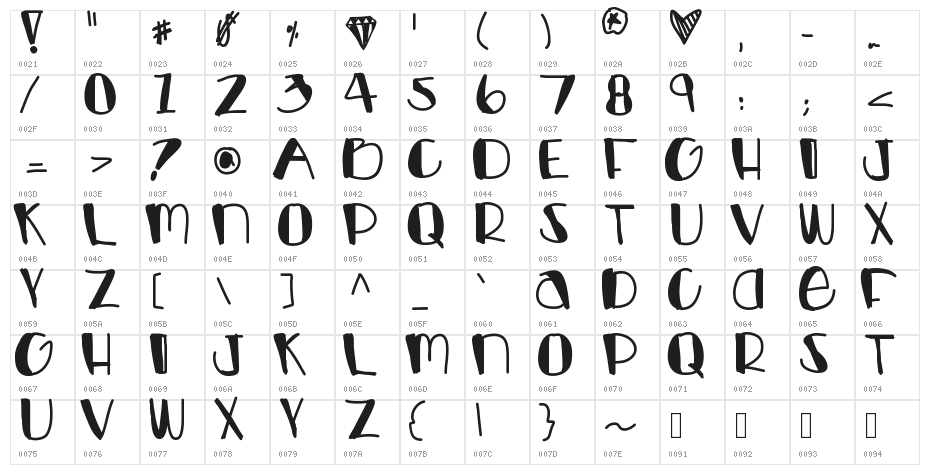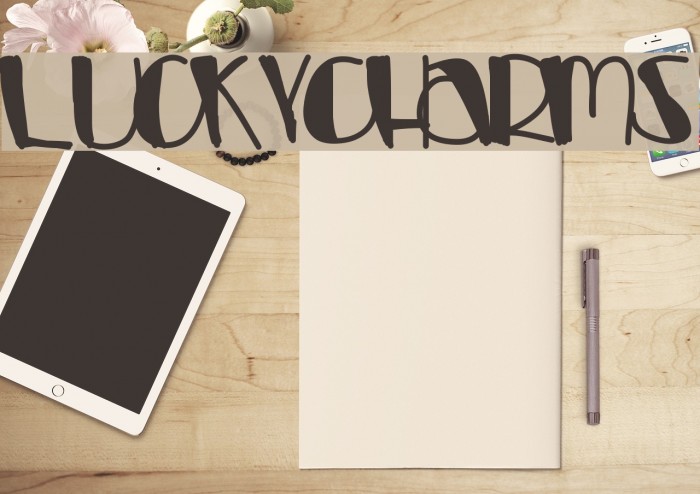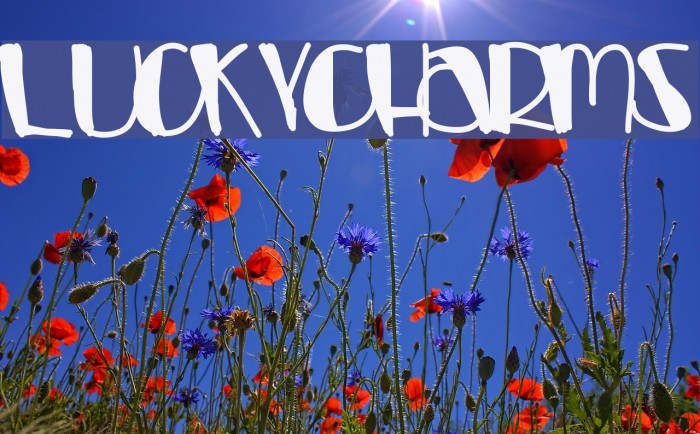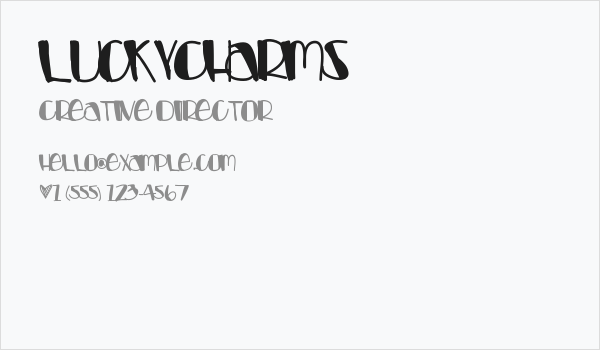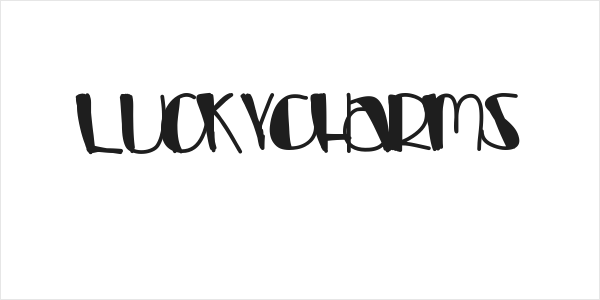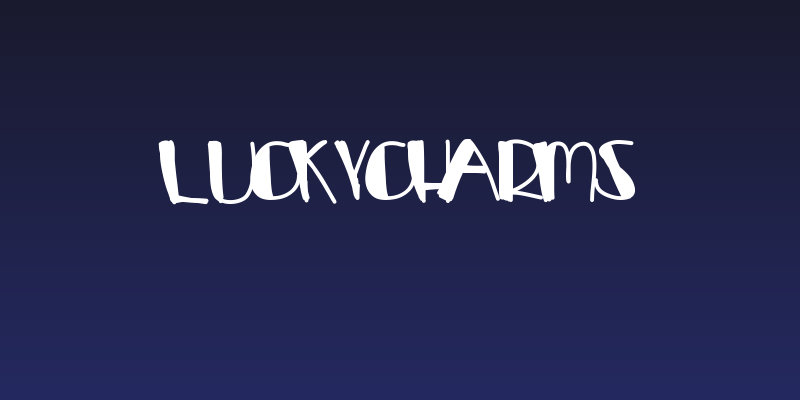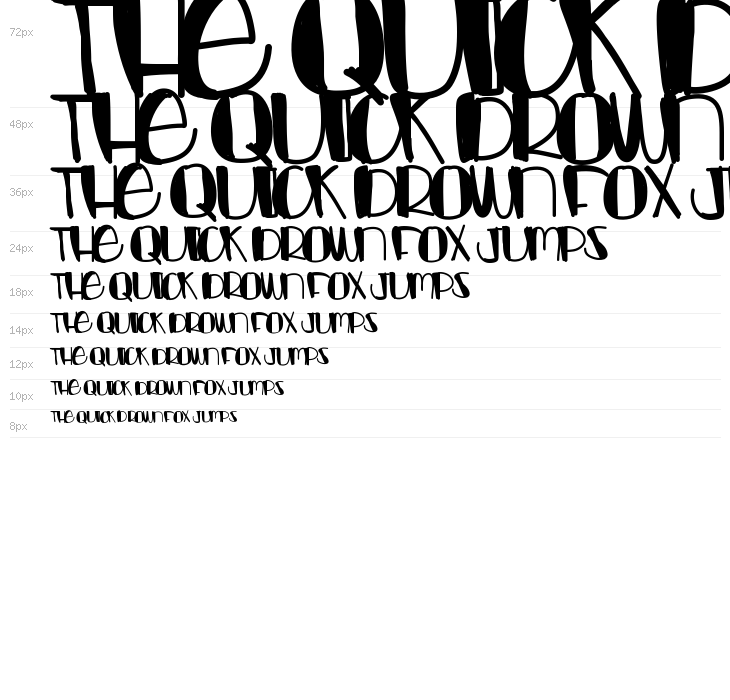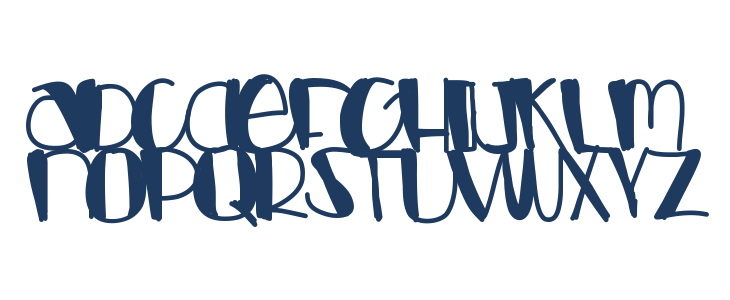
LuckyCharms Font
LuckyCharms Description
This font features a bold, playful style with a handwritten appearance. The characters are thick and rounded, giving them a friendly and approachable feel. The uppercase and lowercase letters maintain a consistent style, with some letters having unique, exaggerated forms that add to the font's whimsical nature. The numbers are equally bold and maintain the playful aesthetic. Special characters are creatively designed, with some incorporating decorative elements that enhance the overall charm. This font is perfect for projects that require a fun and informal touch.
| Proposed Projects | Ideal for children's books, playful branding, greeting cards, and creative posters. |